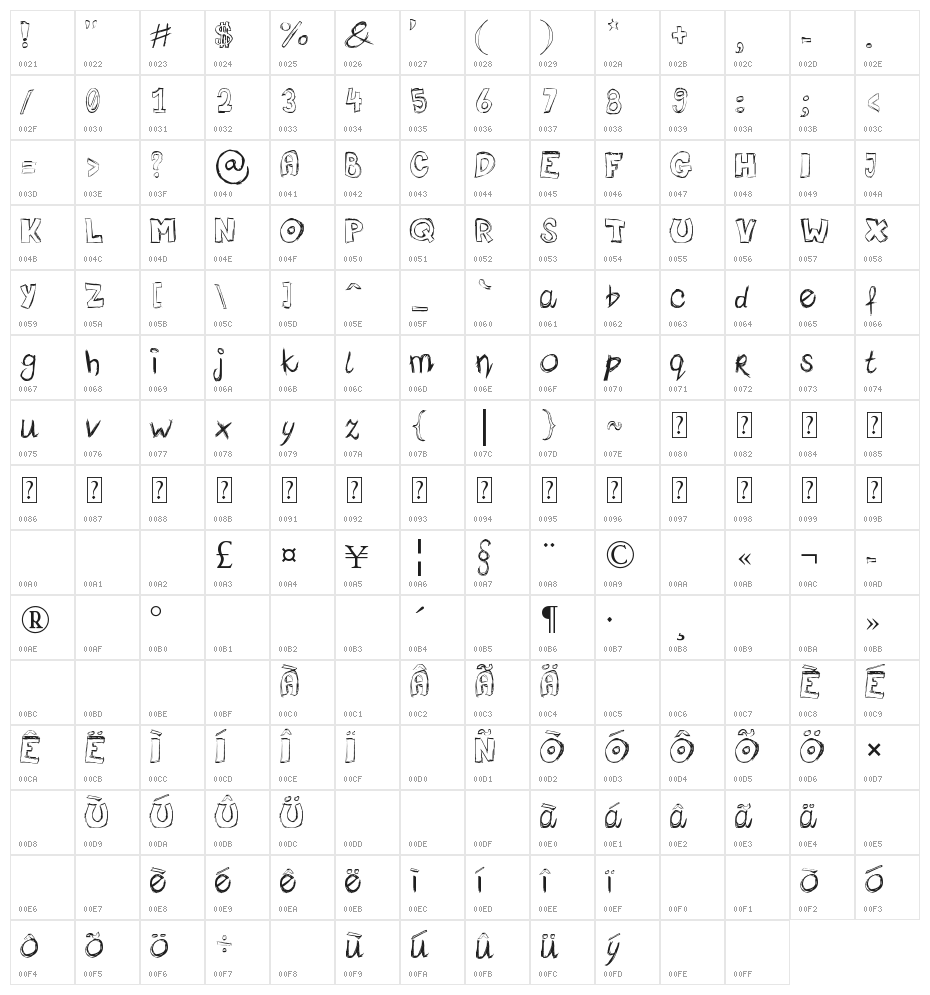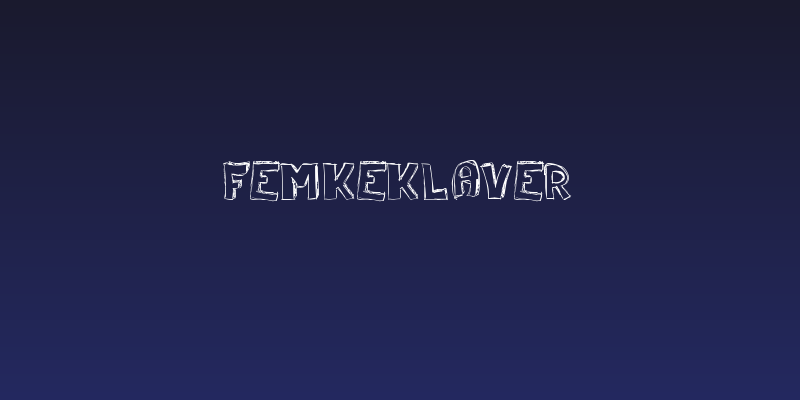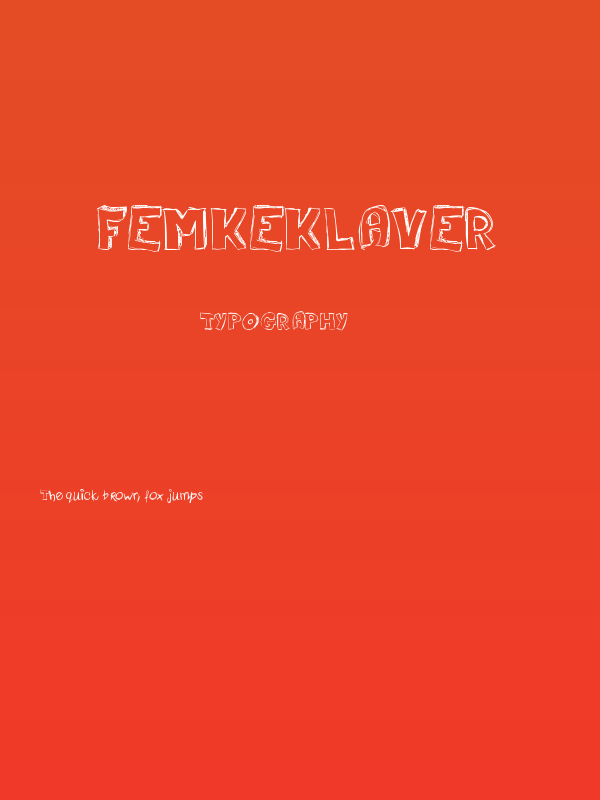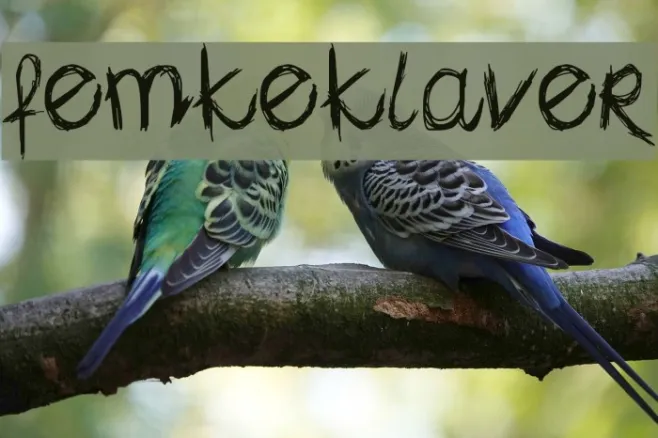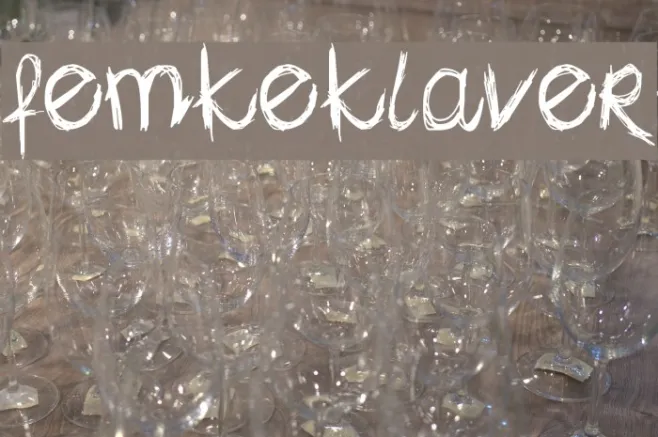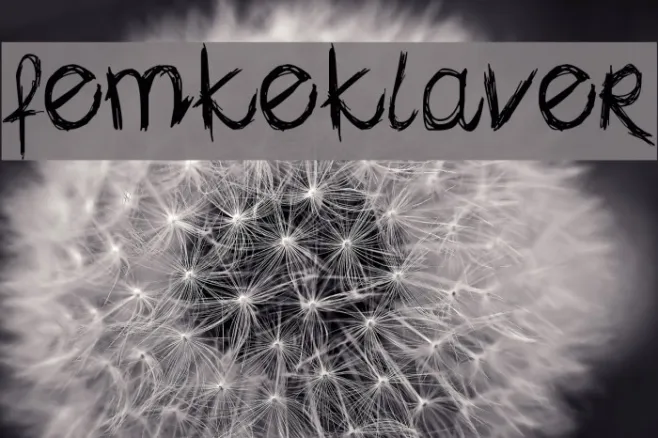
femkeklaver Font
femkeklaver Description
This font features a dynamic and energetic style, characterized by its bold, hand-drawn appearance. The uppercase letters have a playful, sketch-like quality with uneven lines and a sense of movement. The lowercase letters continue this theme with a slightly more fluid and cursive influence, adding to the overall whimsical feel. Numbers and special characters maintain the same hand-drawn aesthetic, ensuring consistency across all elements. The font's irregular strokes and artistic flair make it stand out, offering a unique and creative touch to any design project.
| Proposed Projects | Ideal for creative projects such as posters, children's books, comic strips, and artistic branding. |